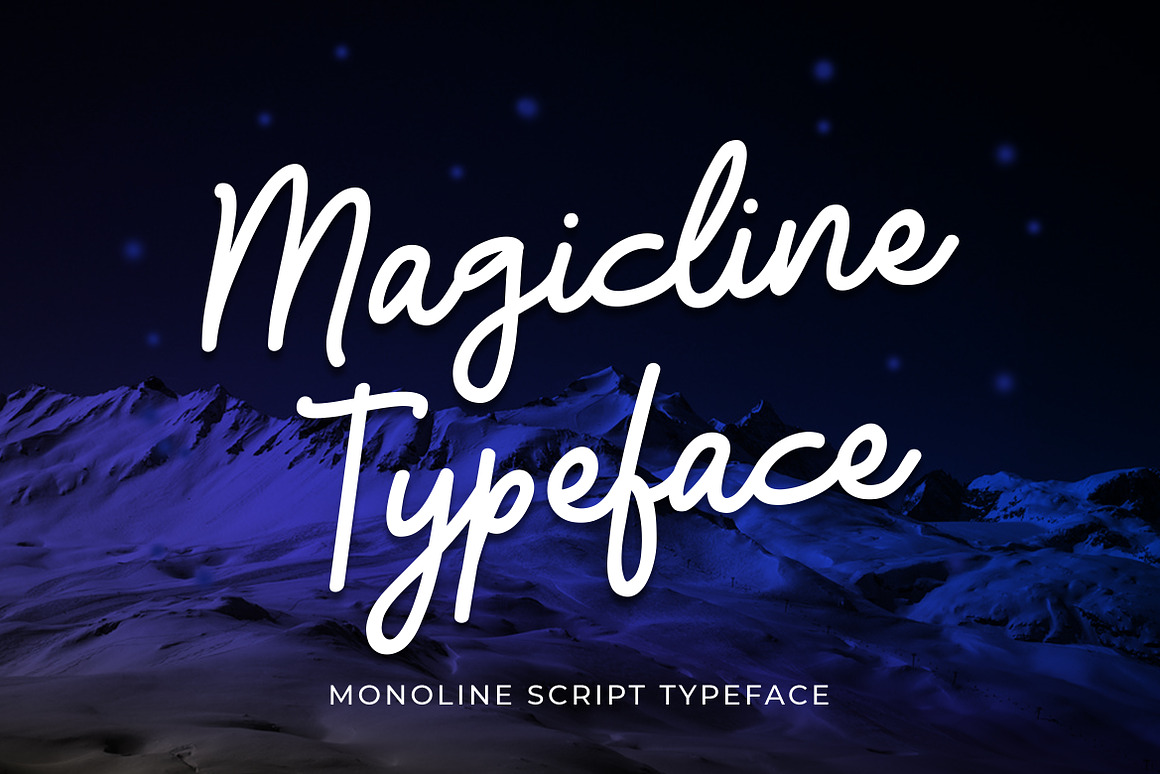
Magicline Typeface
Magicline Typeface is perfect for creative agencies, modern entertainment brands, innovative tech startups, artistic portfolios, dynamic event materials, contemporary fashion labels, cutting-edge advertising campaigns, creative studio signage, progressive corporate identities, trendy social media graphics, experimental design projects, and forward-thinking editorial layouts.
What makes Magicline Typeface exciting is its dynamic energy that creates visual magic through innovative linear design and fluid letterforms that seem to dance across the page. This captivating typeface embodies the essence of creative breakthrough and artistic innovation, combining geometric precision with organic flow that resonates with audiences seeking fresh perspectives and cutting-edge design solutions. The font's distinctive linear character and energetic movement create immediate visual impact while maintaining the clarity essential for professional communication. Its magical personality makes it perfect for brands that want to communicate creativity, innovation, and the transformative power of design thinking in competitive creative markets.
The Magicline Typeface family includes light, regular, and bold weights, featuring dynamic alternates, flowing ligatures, and linear design elements. The character set incorporates creative symbols, energetic numerals, and expressive punctuation marks that enhance the font's magical character and provide designers with comprehensive innovative typography solutions for dynamic brand expressions.
Whether you're developing creative brand identities, designing innovative marketing materials, or creating dynamic visual communications, Magicline Typeface Free Download provides the creative magic your cutting-edge projects demand. This premium typeface excels in applications where visual impact and creative differentiation are crucial for brand recognition and audience engagement in competitive creative industries. The font's dynamic qualities work magnificently across digital platforms and print applications, making it an essential tool for designers creating memorable experiences for design-conscious audiences. Creative agencies and innovative brands choose this font for its ability to communicate artistic vision while maintaining professional credibility and commercial appeal. The comprehensive character support includes creative symbols and design-focused glyphs, expanding its versatility for global creative applications and multilingual innovative communications. Professional designers appreciate its perfect balance of artistic expression and functional clarity, ensuring projects remain both visually striking and highly effective for contemporary audiences. When you incorporate this exceptional typeface into your creative communications, you're selecting a typography solution that celebrates design innovation and artistic breakthrough, ensuring your brand connects with creative professionals while maintaining the dynamic credibility essential for success in competitive creative markets and innovative industries that push the boundaries of visual communication and artistic expression through bold design thinking.